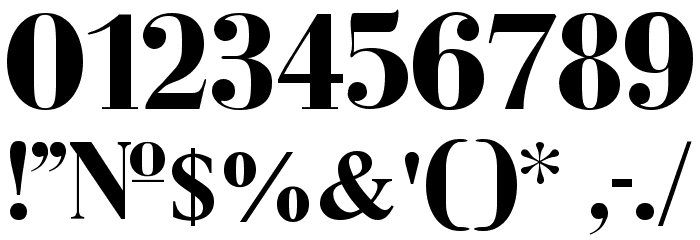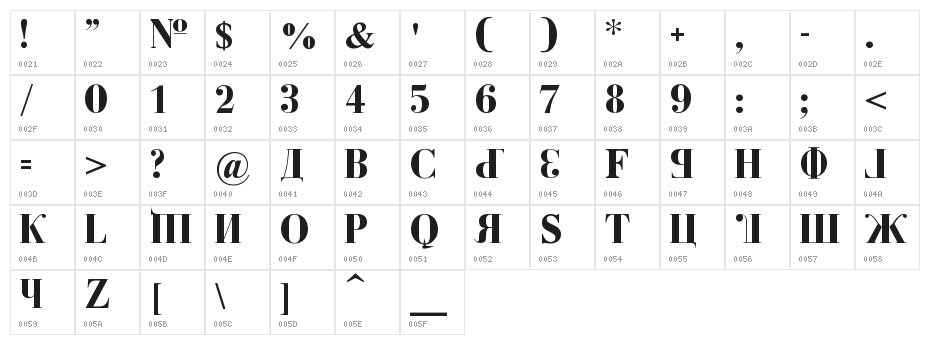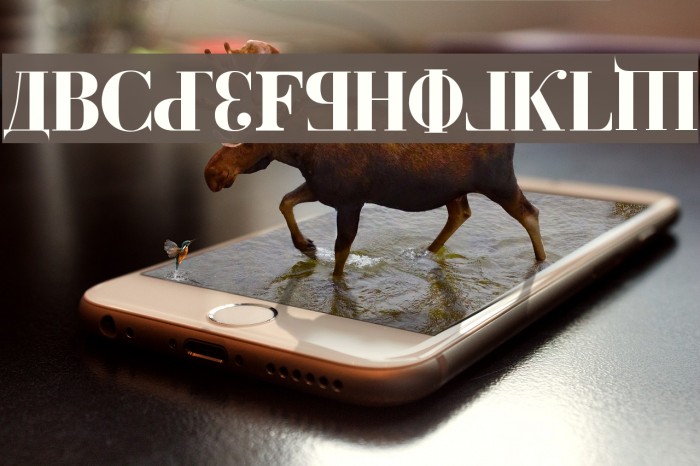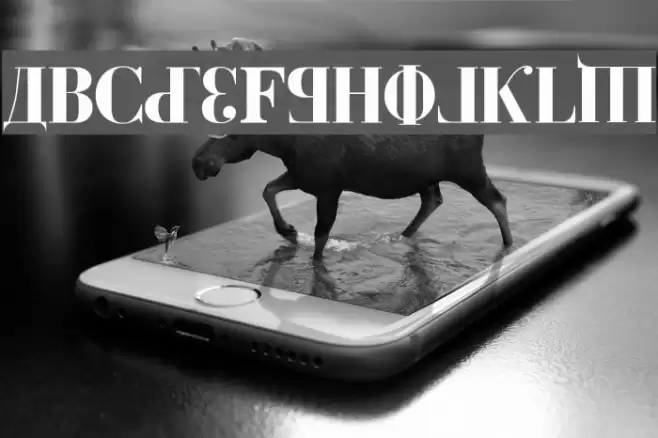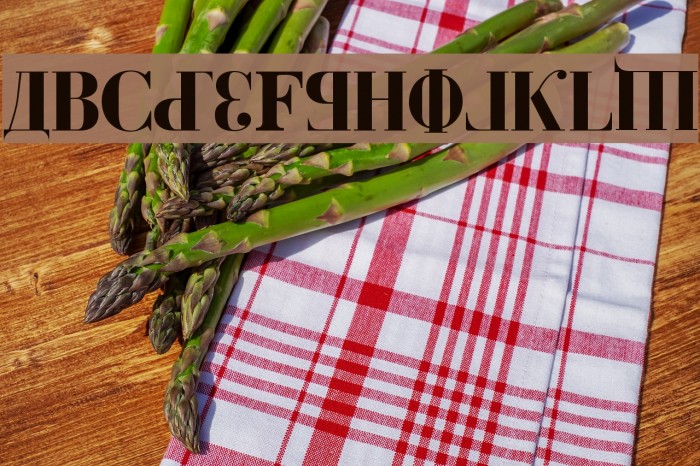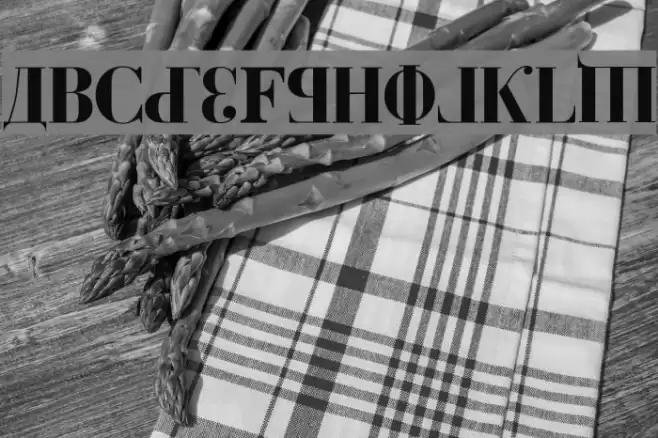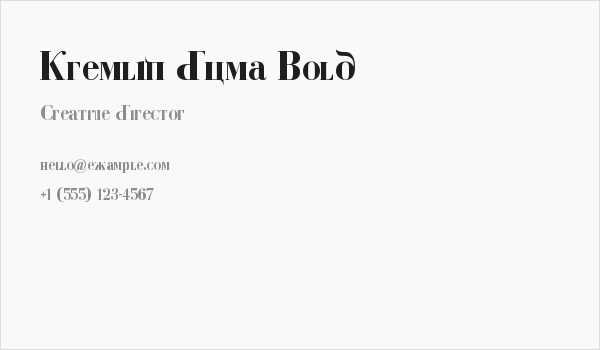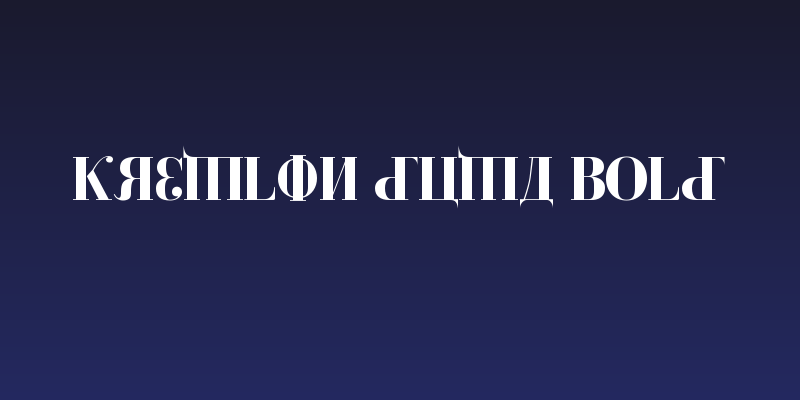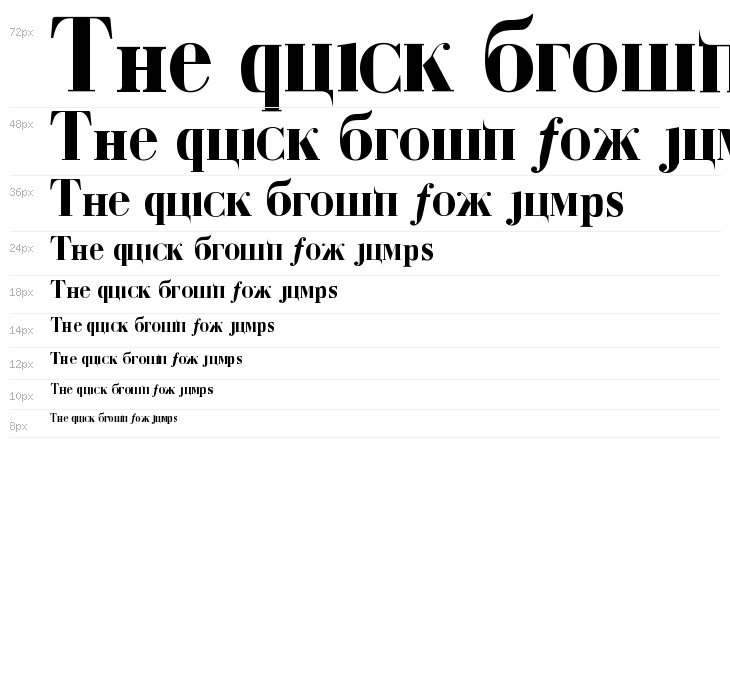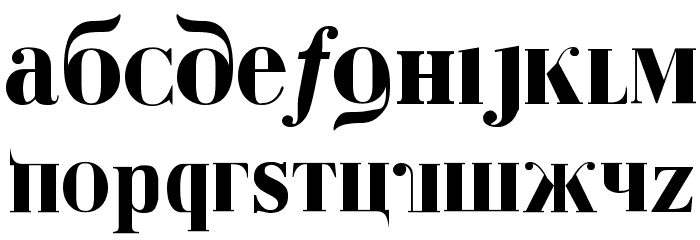
Kremlin Duma Bold Font
Kremlin Duma Bold Description
This font features a bold and striking design with a strong presence, characterized by its high contrast between thick and thin strokes. The uppercase letters exhibit a distinct, decorative flair with sharp serifs and unique, angular shapes. The lowercase letters maintain a consistent style, offering a harmonious blend of elegance and boldness. The numerals are equally bold, ensuring readability while maintaining the font's overall aesthetic. Special characters are designed with the same attention to detail, providing a cohesive look across all glyphs. This font is ideal for making a statement, with its dramatic and eye-catching appearance.